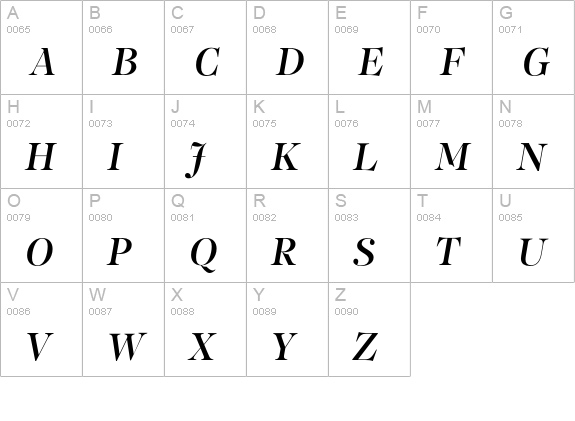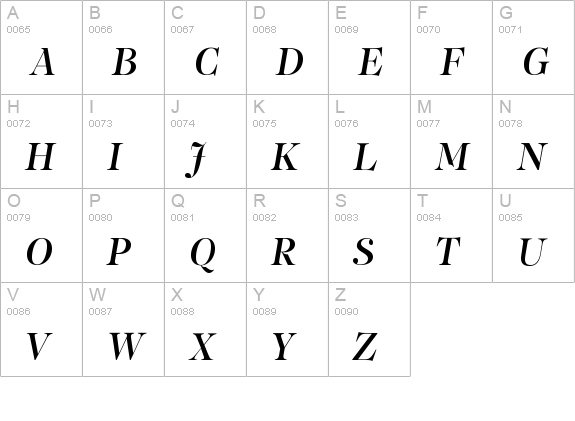
PFRegalDisplayPro-MediumItalic Font Details
PFRegalDisplayPro-MediumItalic font exudes elegance and sophistication with its sleek design and graceful curves. The medium weight adds a touch of modernity while the italic styling conveys a sense of movement and dynamism. Perfect for adding a touch of class to any project, whether it be a wedding invitation, branding materials, or editorial design. And the best part? PFRegalDisplayPro-MediumItalic is freely available to download at FontsMarket.com. Embrace this exquisite font and elevate your designs to new heights with the timeless beauty of PFRegalDisplayPro-MediumItalic.